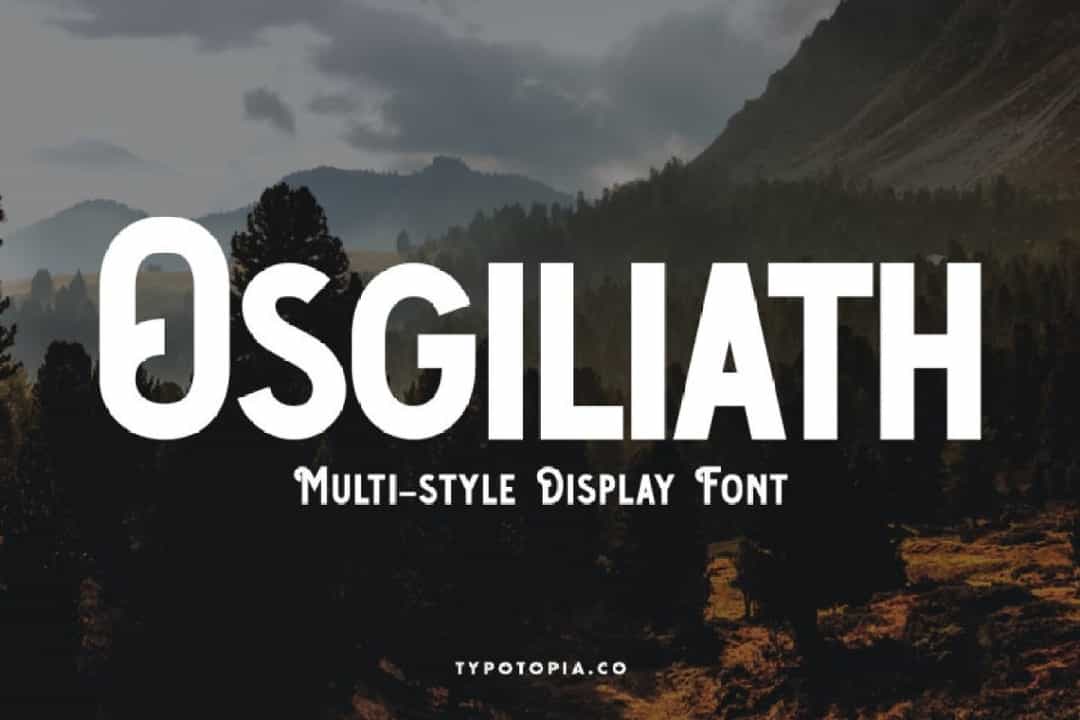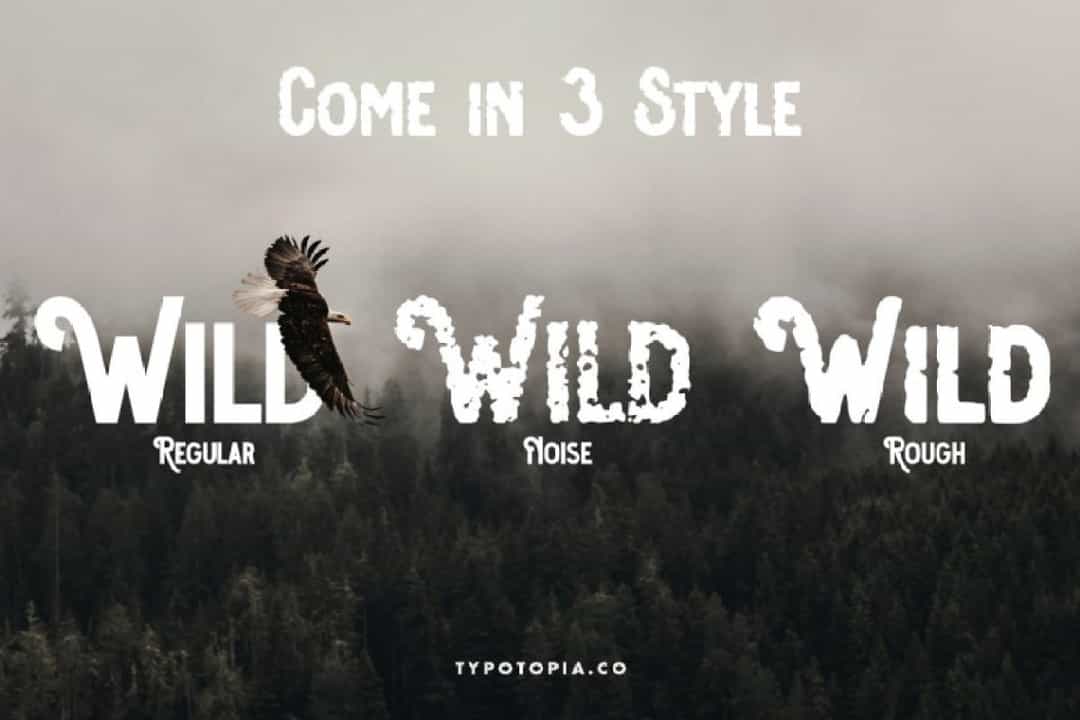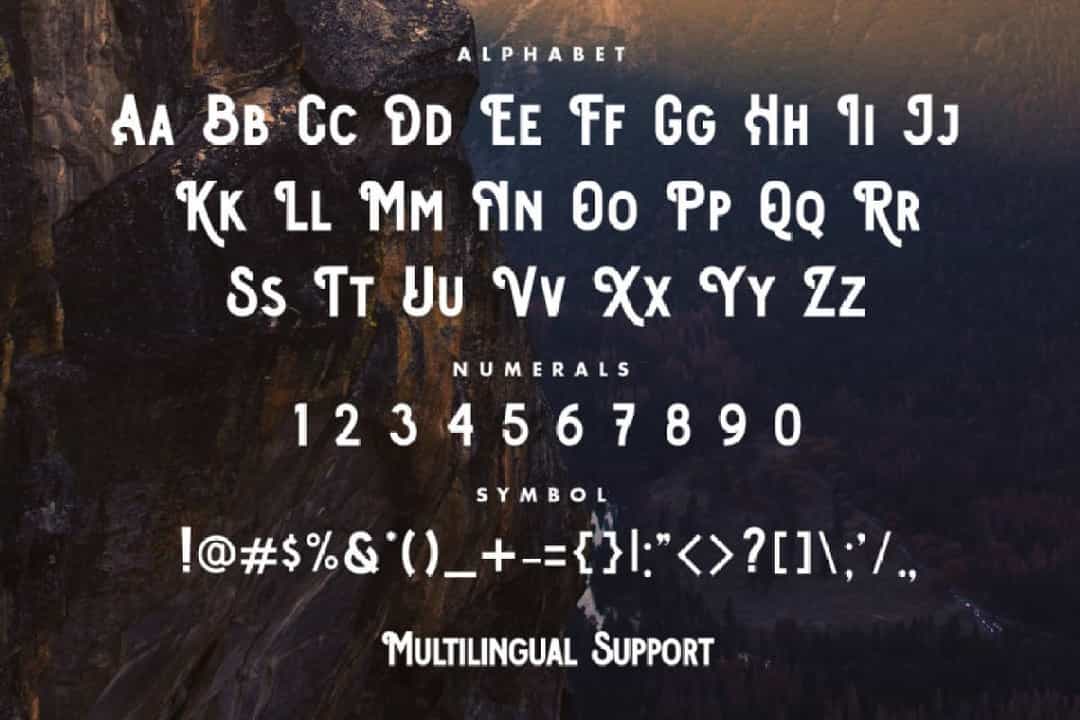
Osgiliath is a really splendid display font! Ideal for print quotes, logo invitations, products, packaging, headers, and Logotype Letterhead, Poster, Labels, Apparel Designs, or any other project – Osgiliath will make any project beautiful and eye-catching. This Font truly amazes!